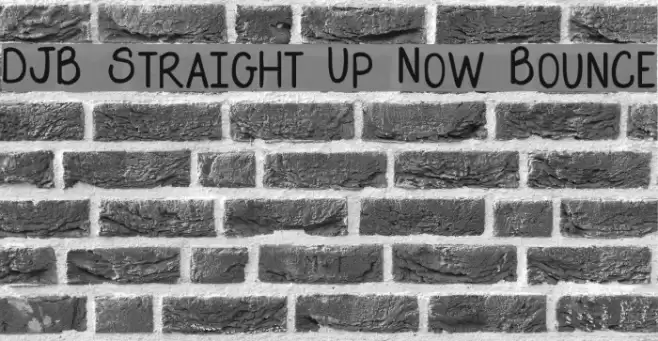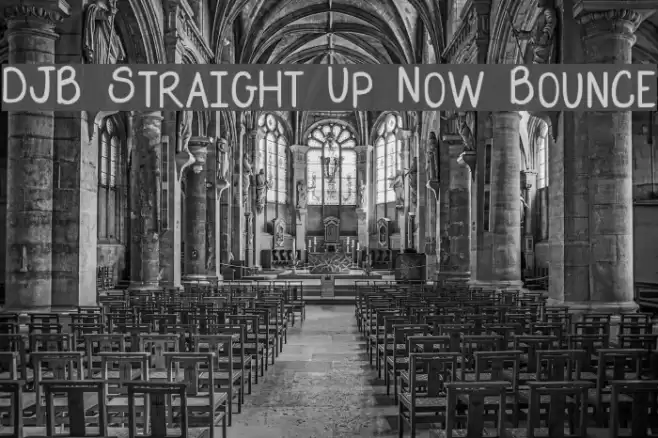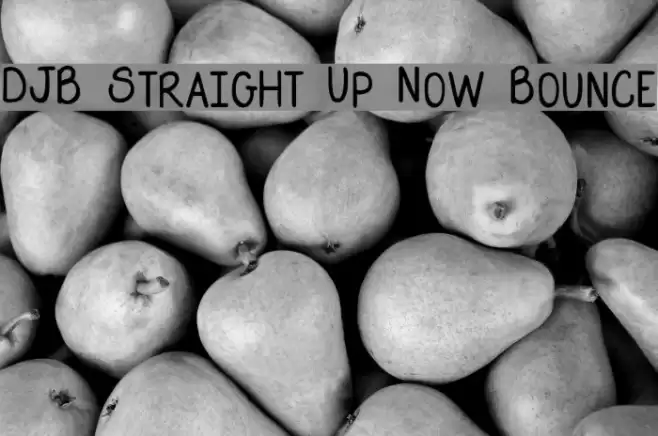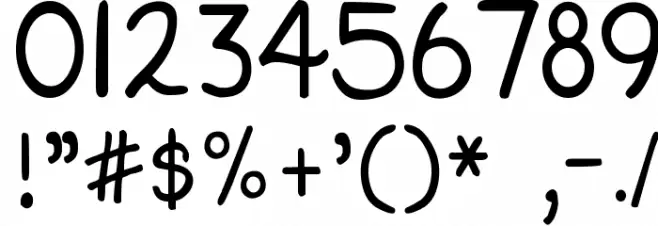
DJB Straight Up Now Bounce Font
DJB Straight Up Now Bounce Description
This playful and lively font features a handwritten style with a slight bounce in its baseline, giving it a whimsical and informal appearance. The characters are rounded and smooth, with consistent stroke widths that convey a friendly and approachable feel. The uppercase and lowercase letters maintain a uniform height, enhancing readability while adding a touch of casual elegance. The numerals and special characters are designed to match the overall aesthetic, ensuring a cohesive look across all text. This font is perfect for projects that require a personal touch or a fun, engaging vibe.
A playful, handwritten font with a lively bounce and smooth, rounded characters from Uncategorized fonts.
- Proposed Projects: Ideal for greeting cards, children's books, playful branding, and social media graphics.
- Overall Style: Playful
- Use Case: Logos, Headlines, Informal Text